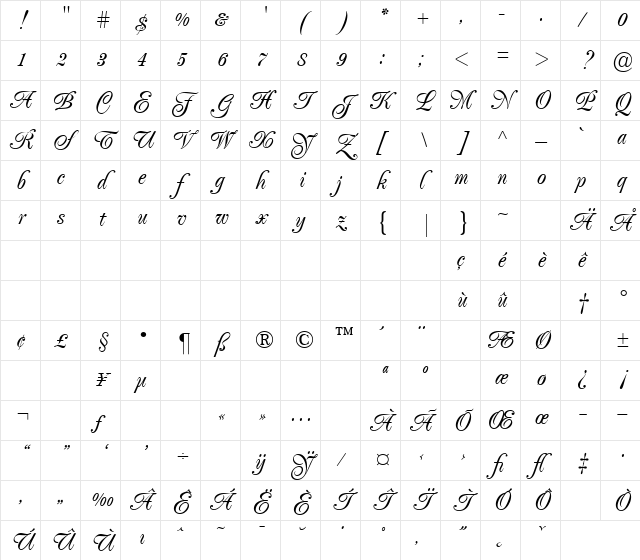
Poppl-Exquisit Regular
Design Context for Poppl-Exquisit
Poppl-Exquisit is a composed and adaptable typeface that performs quietly and consistently across a wide range of design contexts.
Pro Tip: Use Poppl-Exquisit in both headline and body roles to test its range before committing to a single application.